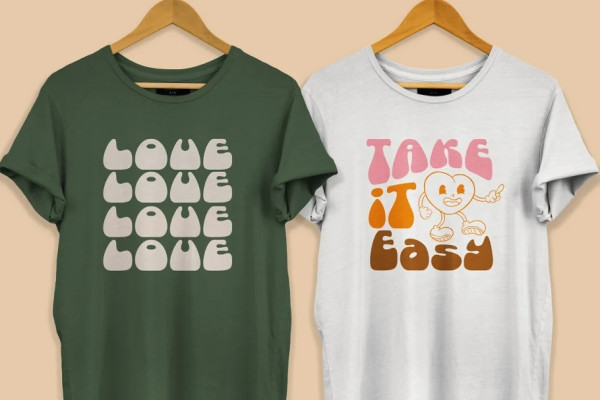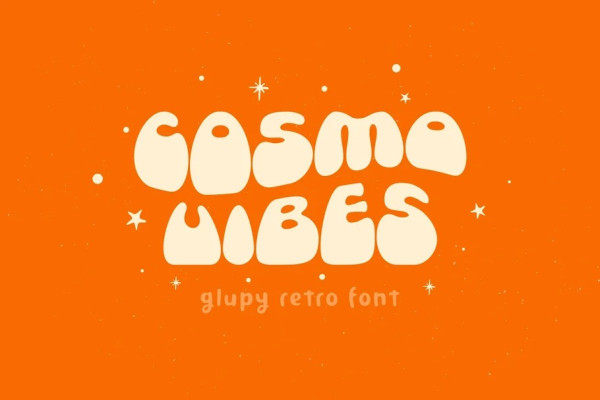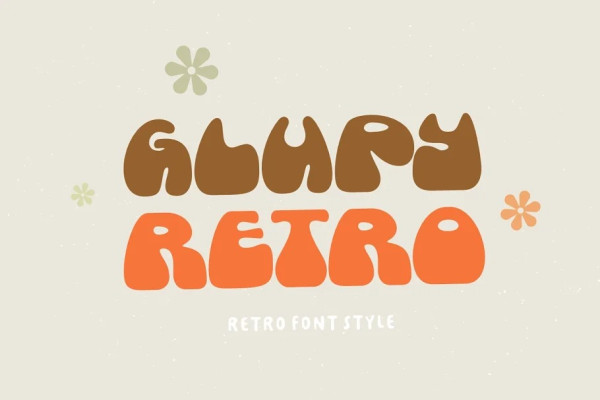
Glupy Retro Font
Glupy Retro Font is a display type font with the style fat below and skinny on top. Use this display font to add that special retro vintage touch to any design idea you can think of!
Very suitable for logotype, Stickers, Packaging design, Cricut Project, headlines, brand identity, t shirt or apparel industry, posters, magazines, books, YouTube, Instagram, websites, or any of your creative design projects.